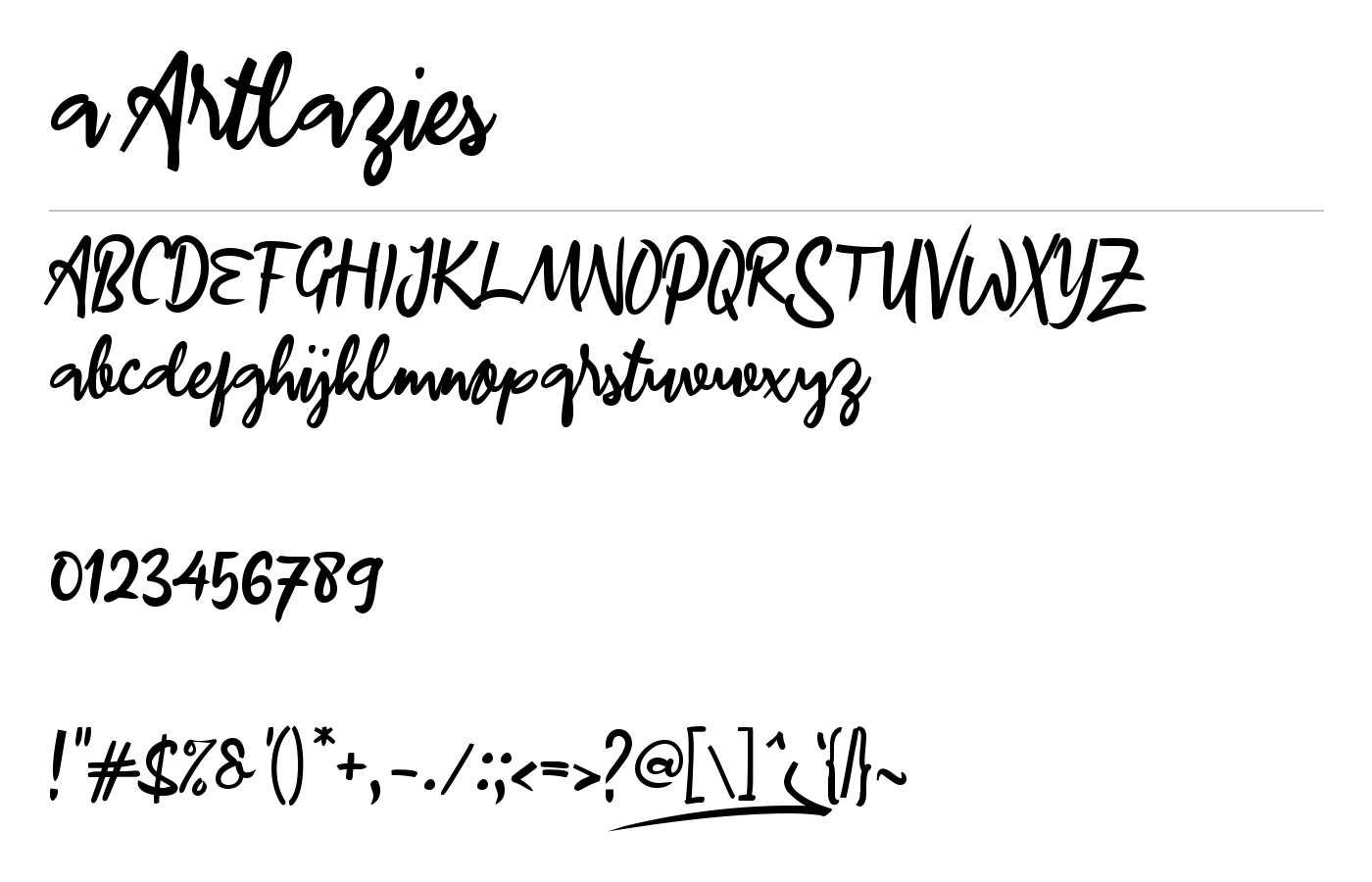
Artlazies is a lively handwritten script font featuring smooth, flowing strokes with a slight slant, giving it an energetic and friendly vibe. Its balanced letterforms, with playful curves and casual flair, make it perfect for creative branding, invitations, and trendy packaging that seek a personal, approachable touch. This font shines in designs that want to convey warmth and originality without sacrificing readability.
a Artlazies Font
About a Artlazies Font